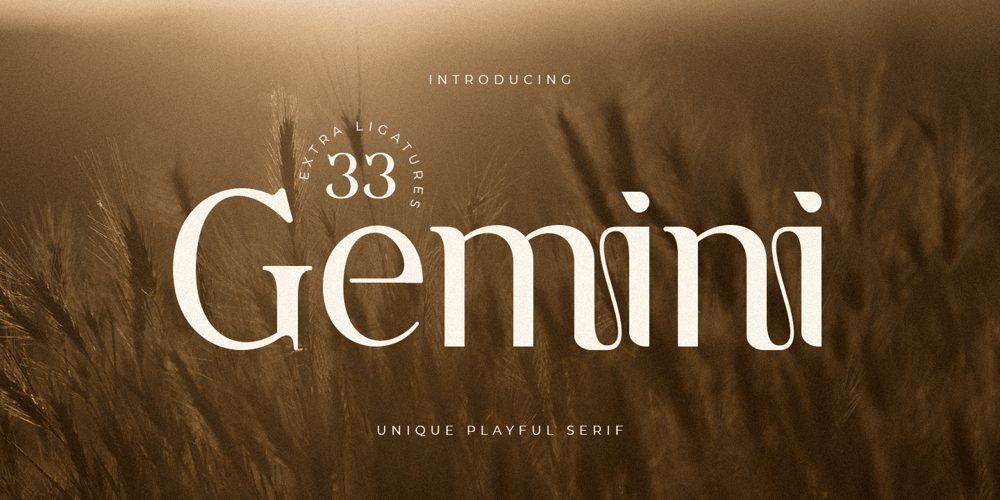
Gemini Style Font Family was designed by Zamroni Hamzah and published by Sensatype Studio. Gemini Style contains 1 styles and family package options. A serif that we created special for unique branding needs, with extra ligature and alternates in unique shape will be ready to add value of your brand. It so nice to leverage designer or product owner that need solutions to make their design look more modern and playful. And specially for this font, We prepared any ligatures, and any alternate characters to help you create unlimited variations for your creative needs.Gemini serif font ready with: Any options to get creative variations (combination of Alternate and Ligatures) Preview as a inspirations that you can do with Gemini font Ready with Lowercase and Uppercase characters Wish you enjoy our font. 🙂